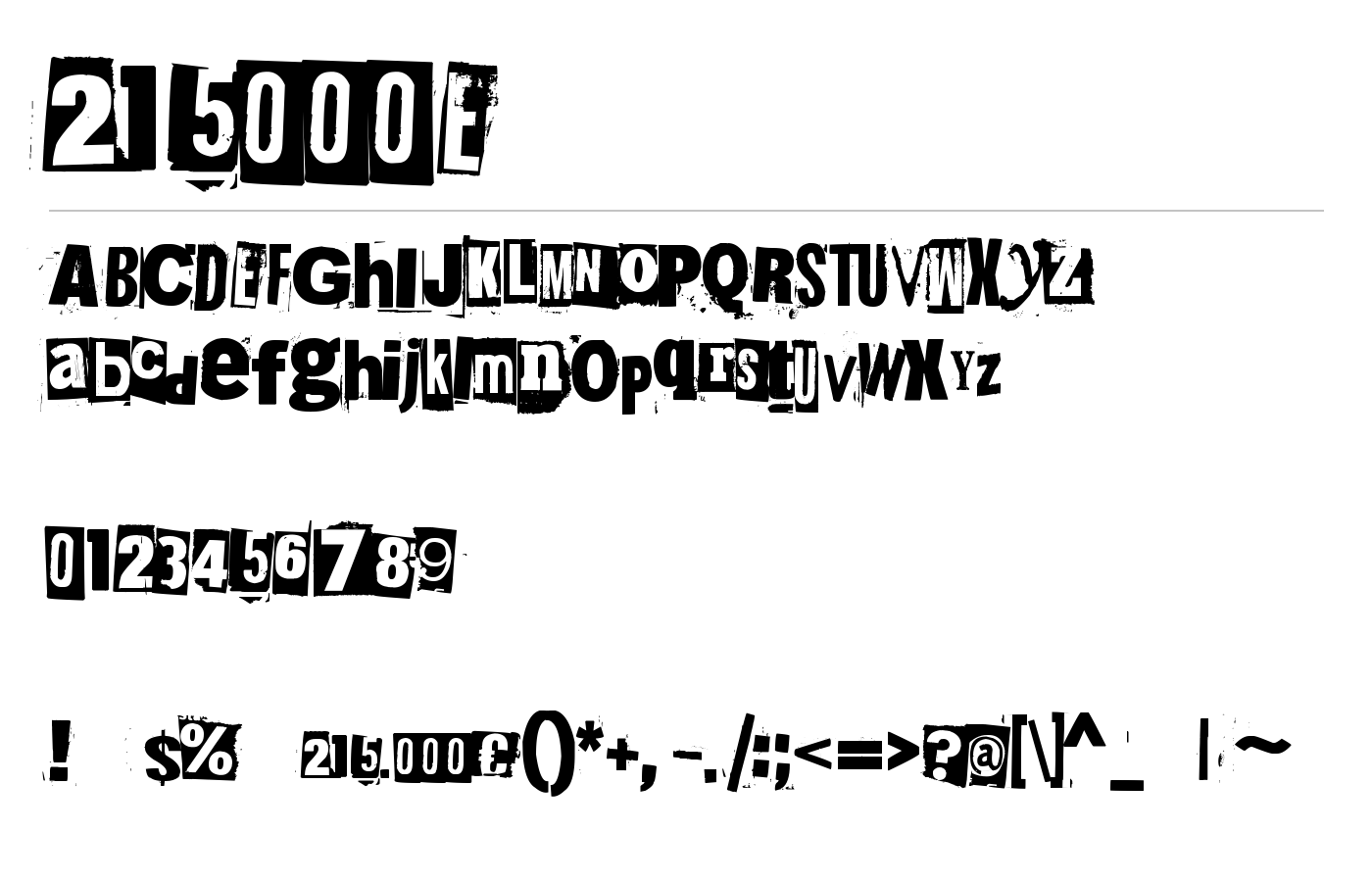
215000E is a bold, distressed sans serif font featuring irregular, cut-out letterforms that resemble a ransom note or collage style. Its uneven, textured edges and mix of uppercase and lowercase characters create a bold, edgy, and somewhat chaotic look that works well for eye-catching posters, street art, and alternative branding where a rebellious or grungy vibe is desired. This font stands out best in headlines or short, impactful text rather than long body copy due to its playful yet rough aesthetic.
215000E Font
About 215000E Font